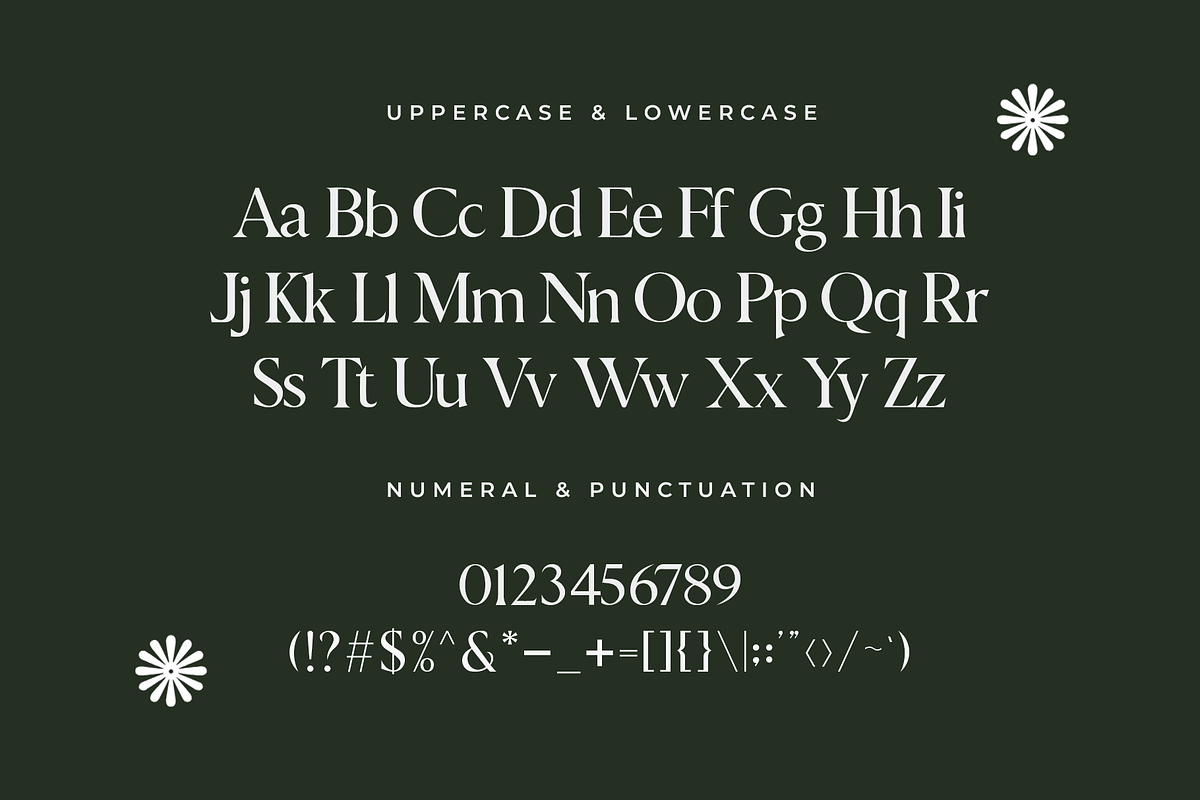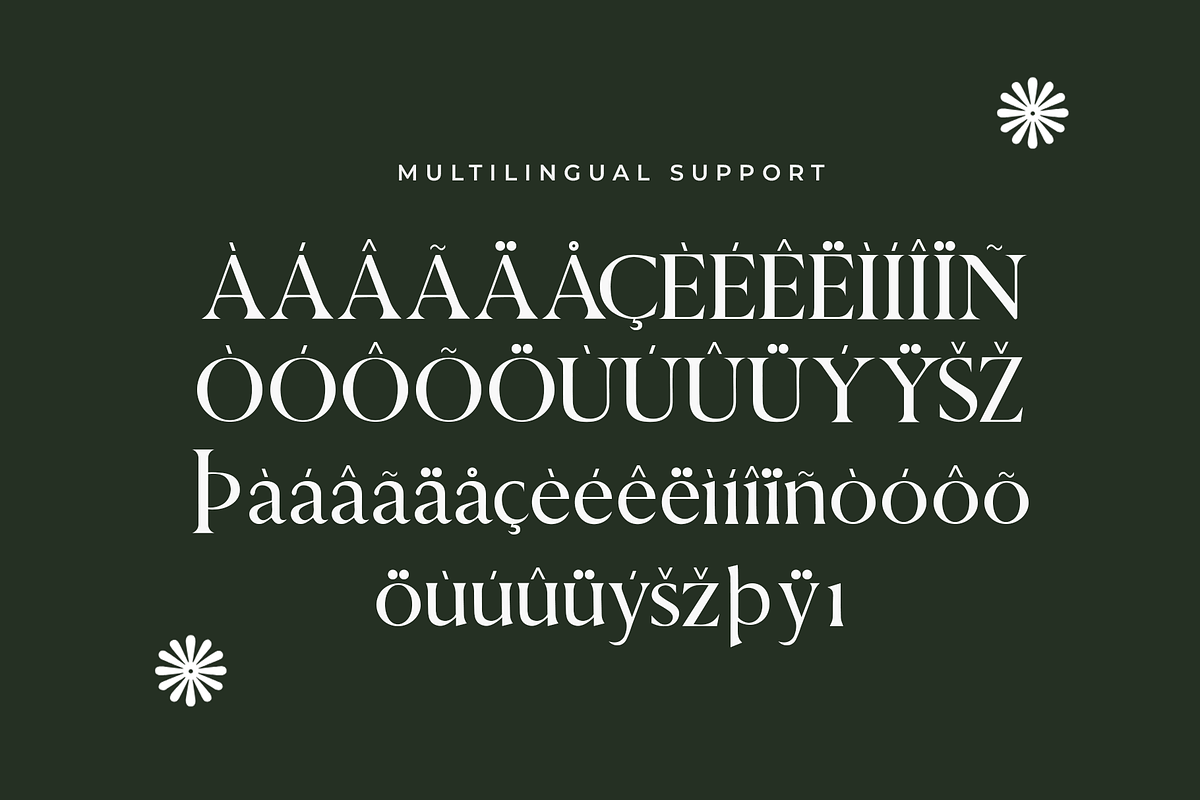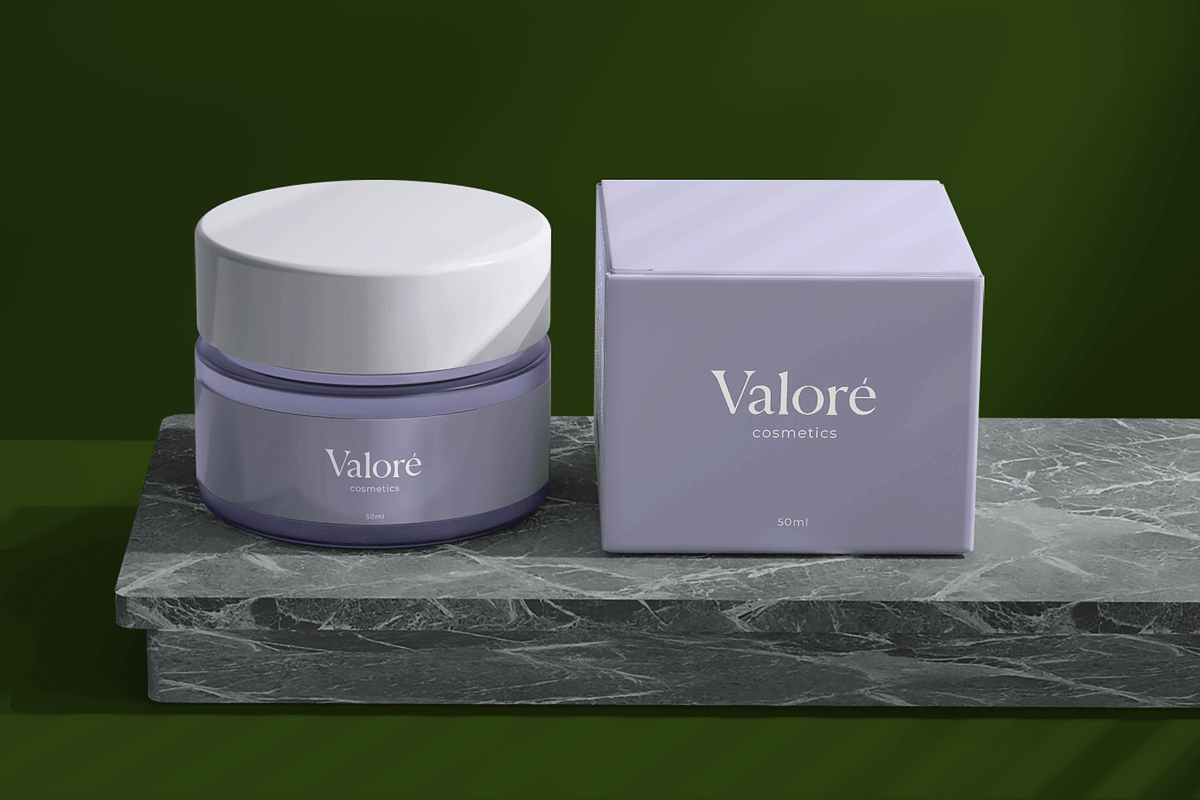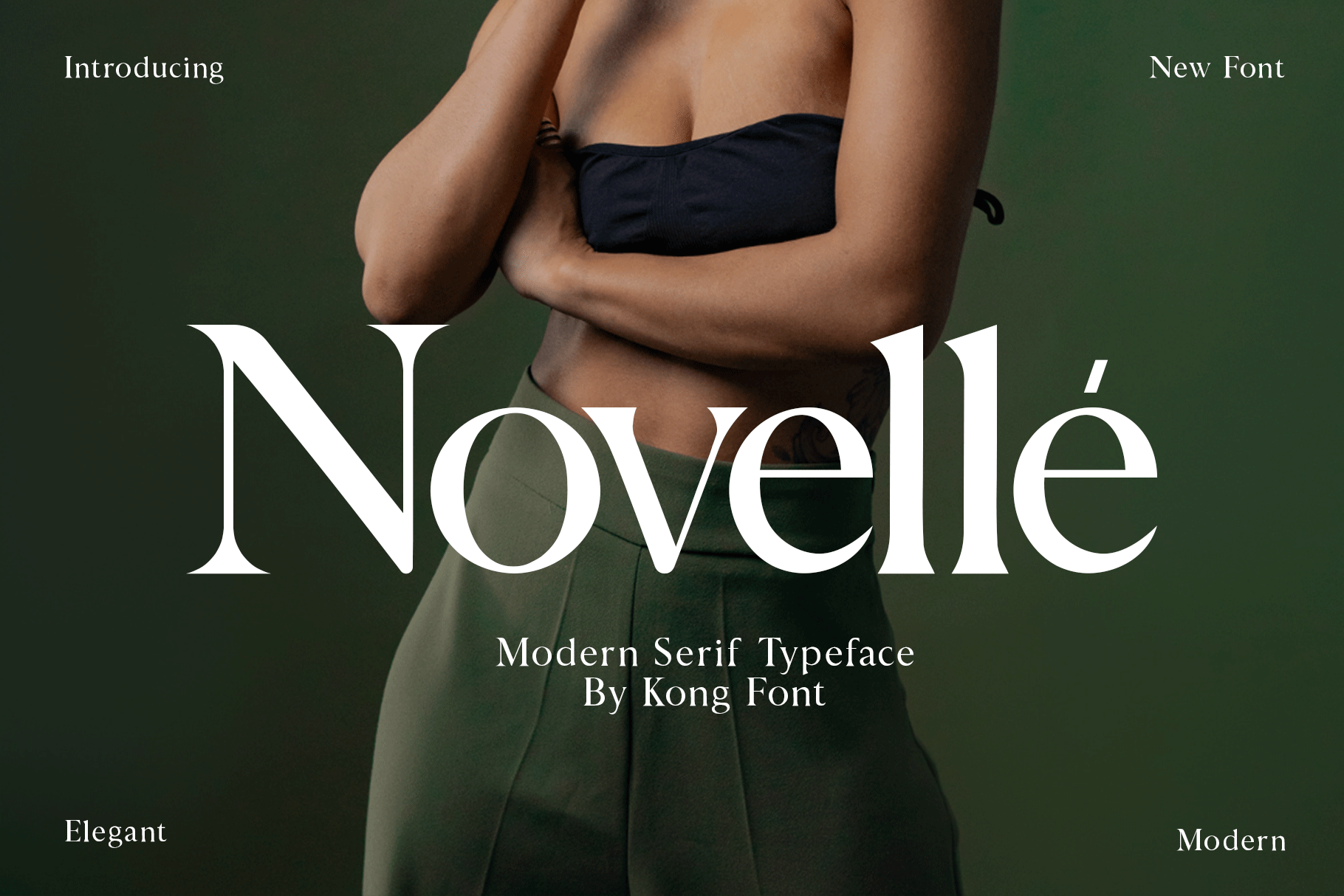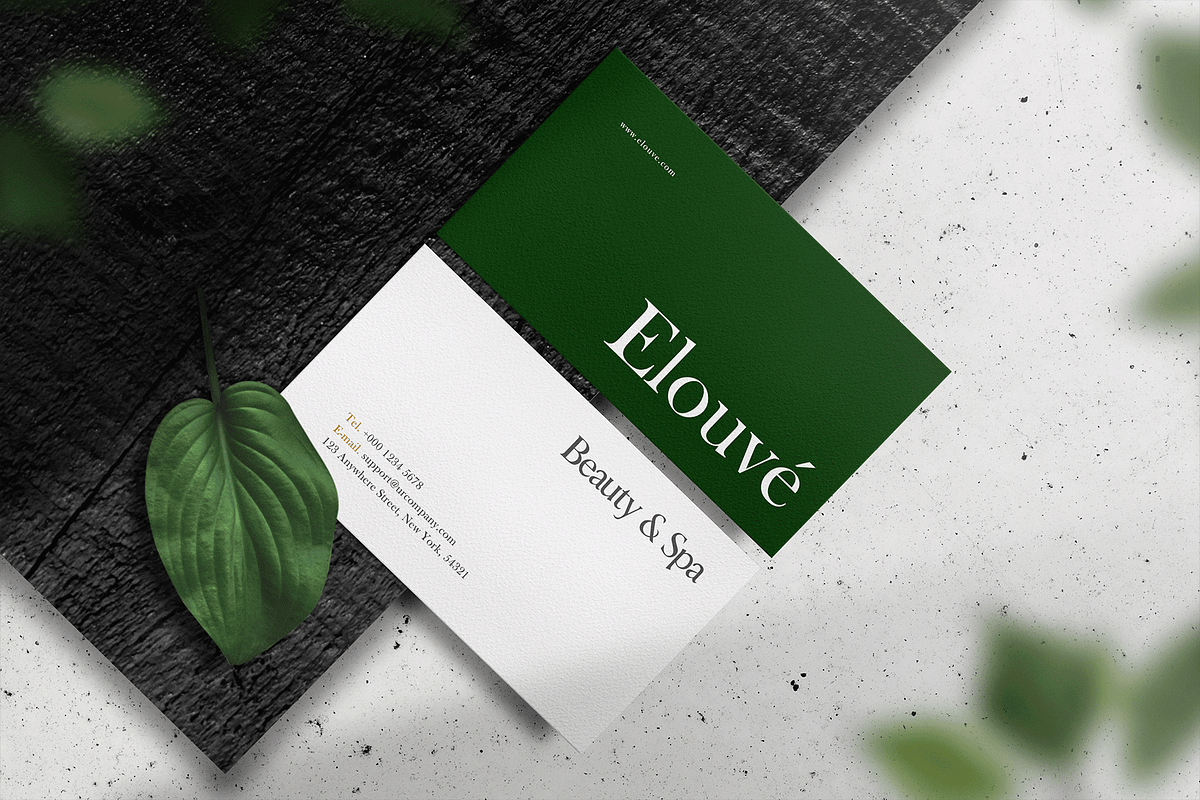
Novelle – A Modern Serif Typeface
Introducing Novelle, a modern serif typeface that combines timeless sophistication with a fresh, contemporary feel. With its sharp serifs, clean strokes, and elegant proportions, Novelle is perfect for high end branding, editorial layouts, packaging, and stylish headlines.
Designed for versatility and readability, Novelle excels in both print and digital projects. Whether you’re crafting a luxurious magazine spread, an elegant logo, or a refined website header, this typeface delivers a bold yet graceful presence that elevates every design.
With multilingual support, punctuation, and beautifully designed letterforms, Novelle is your go-to font for bringing a modern classic touch to any creative work.